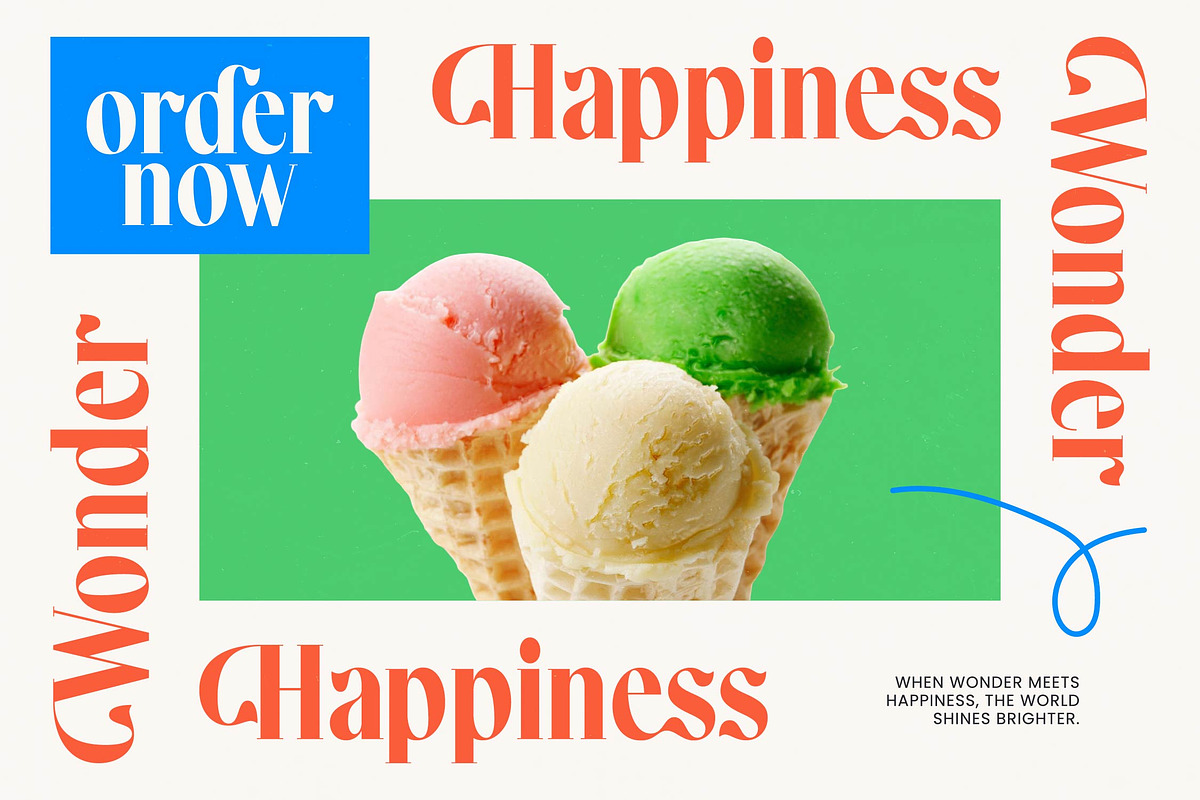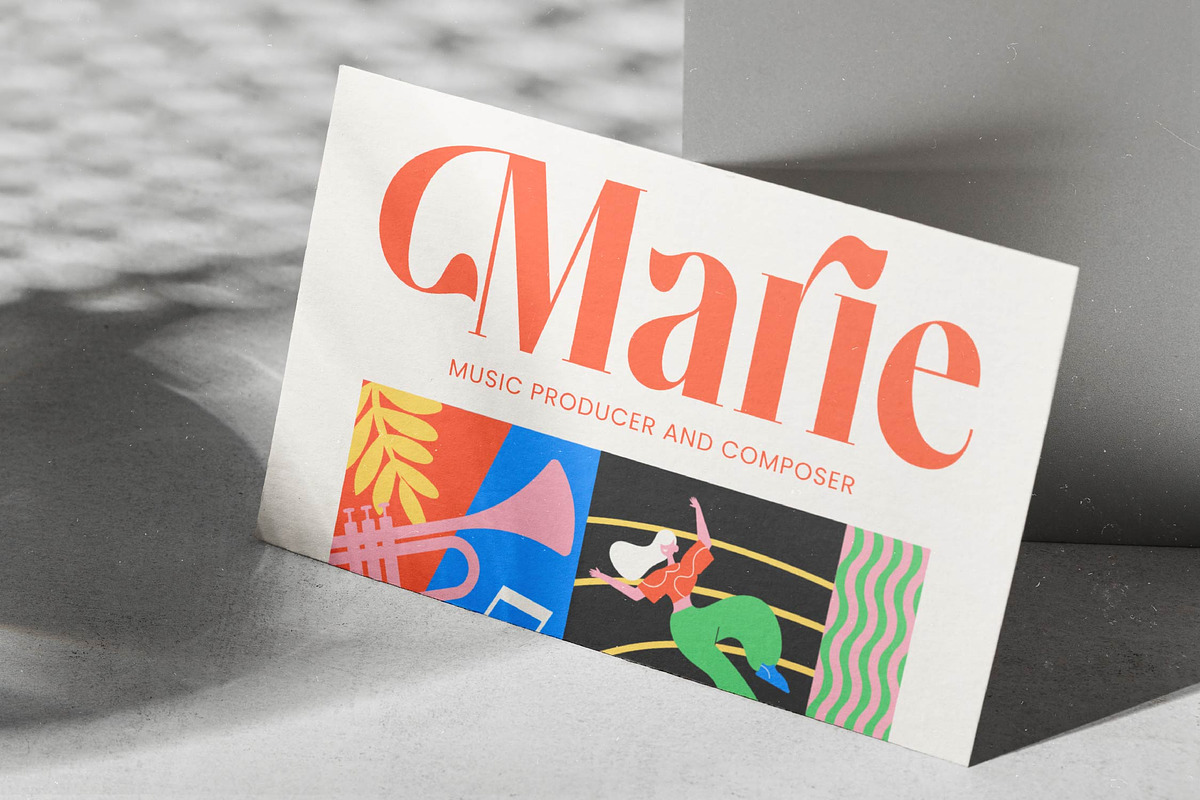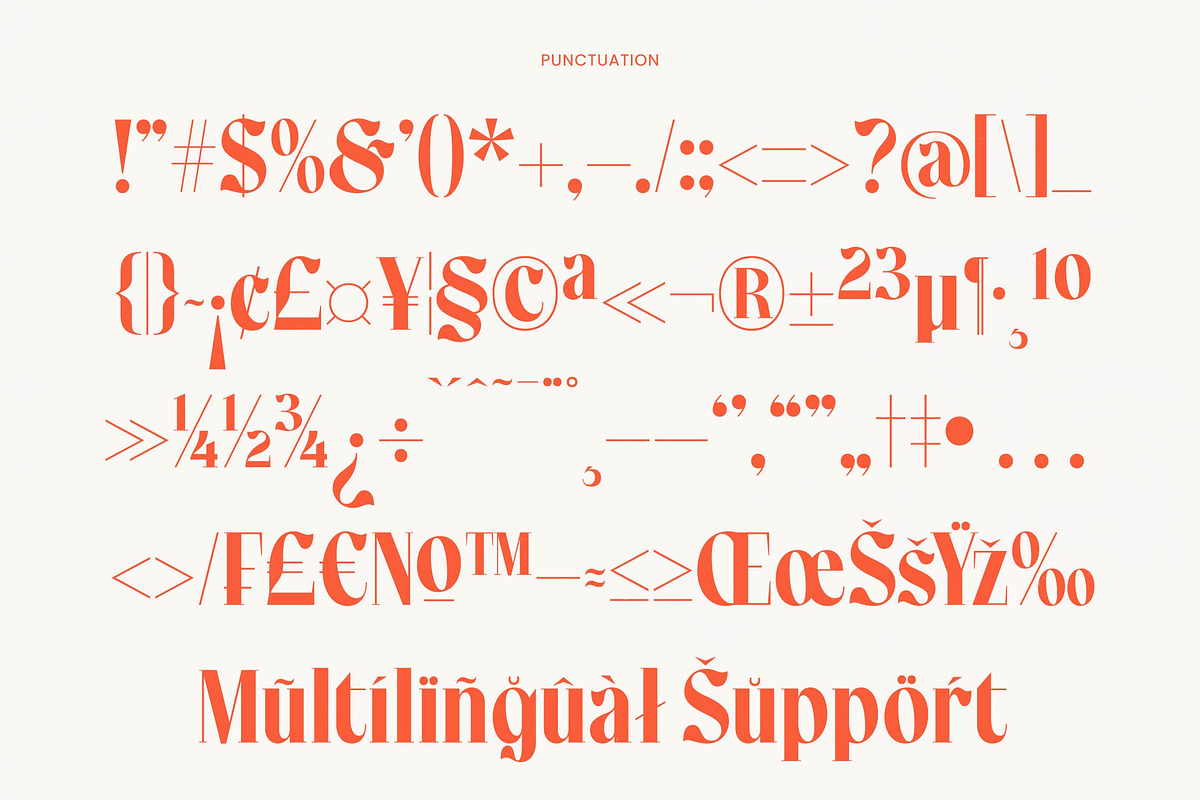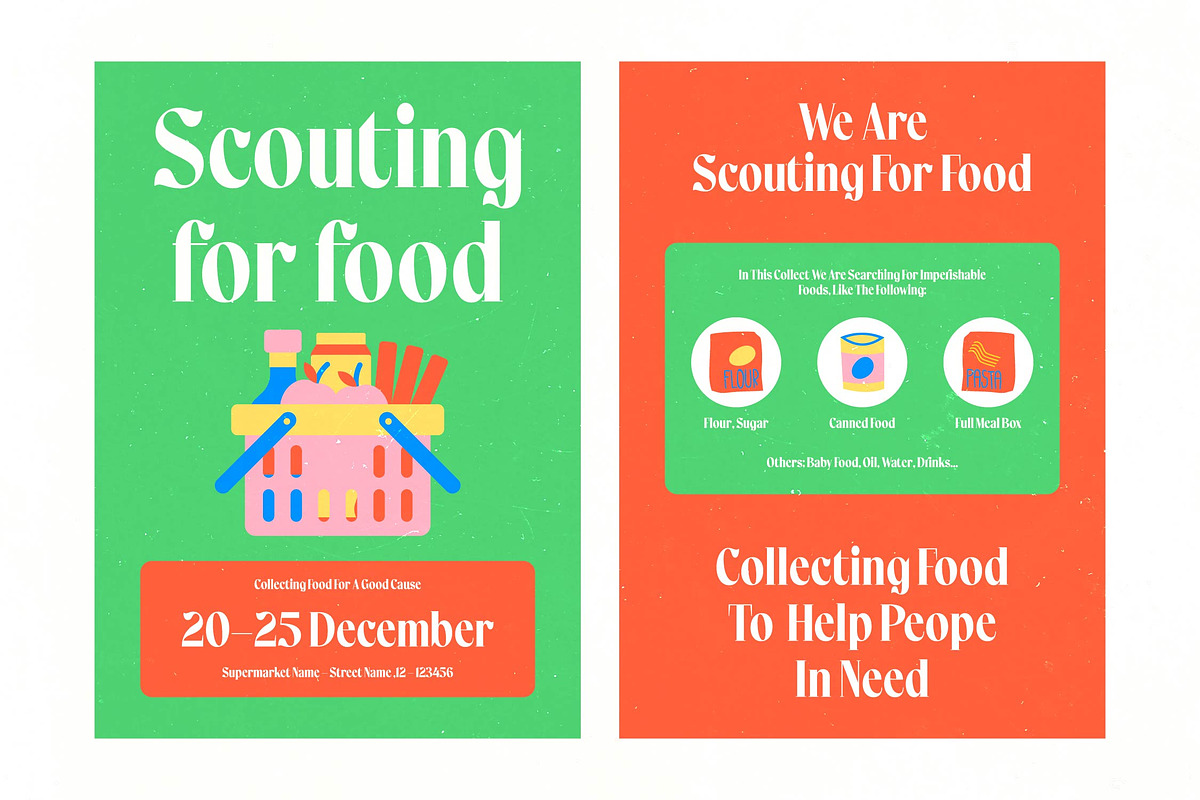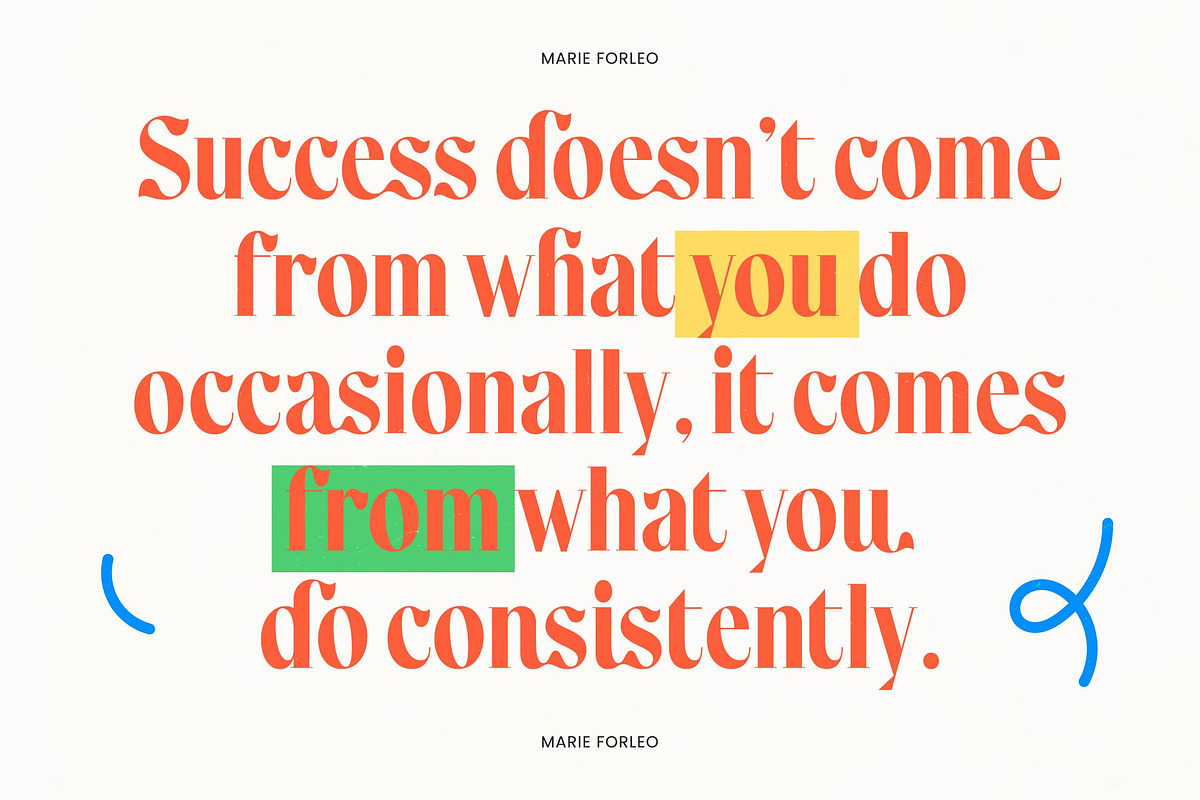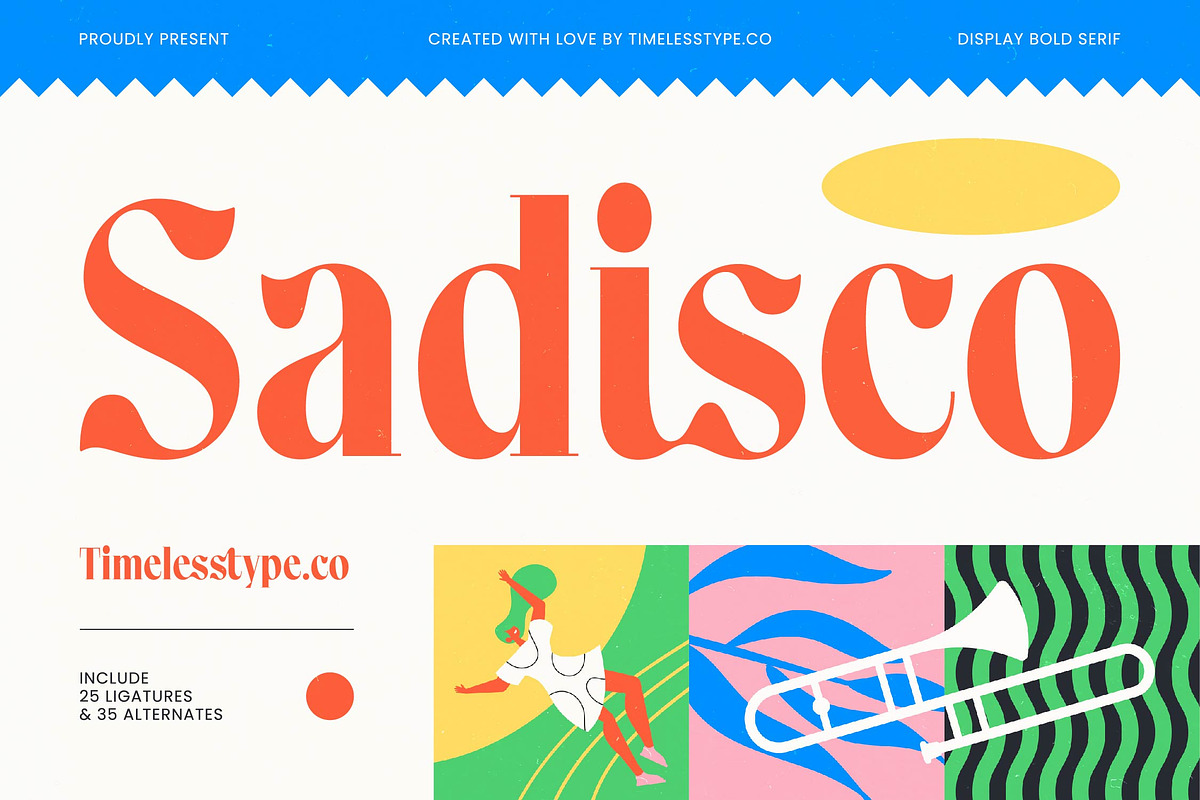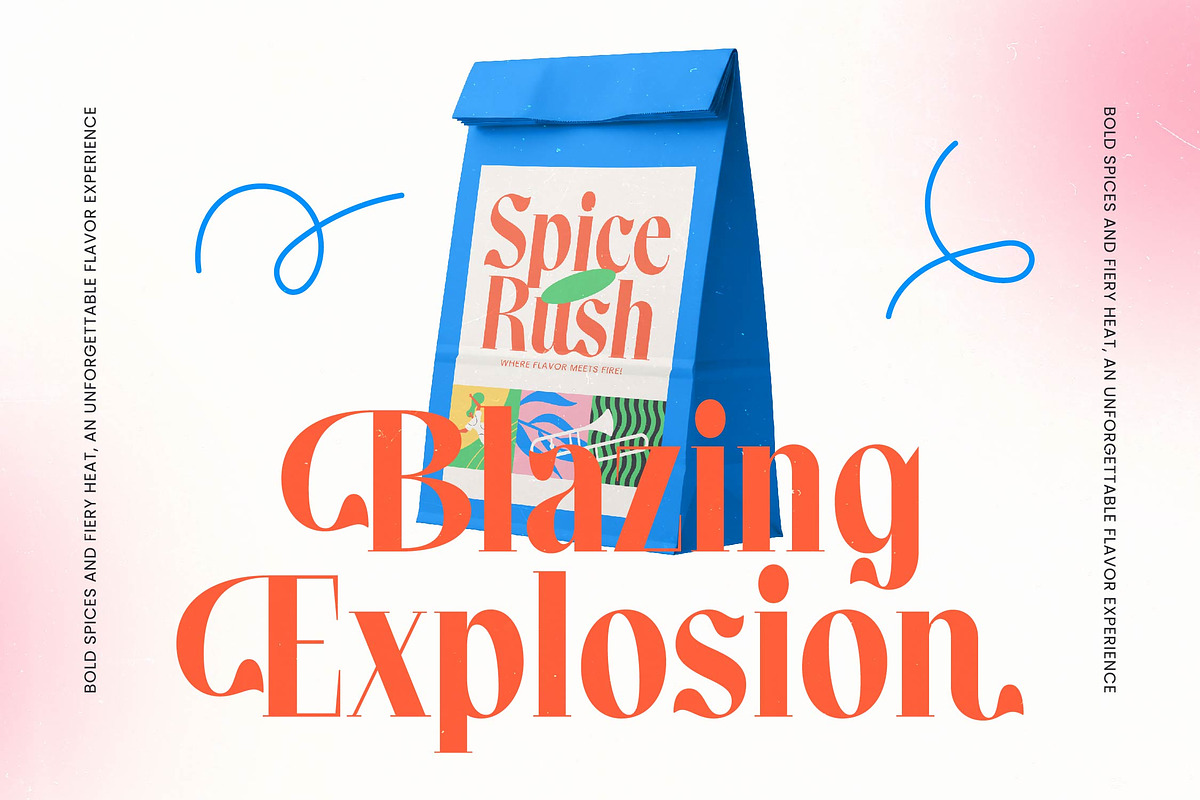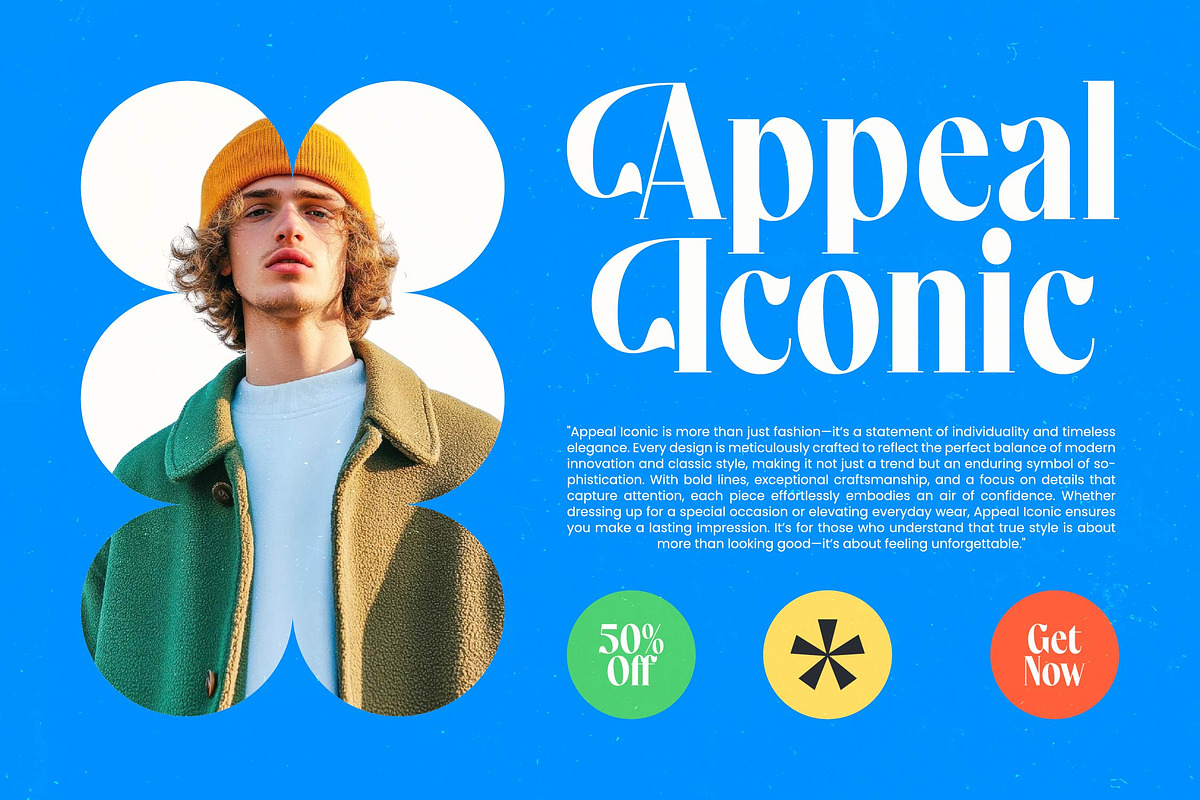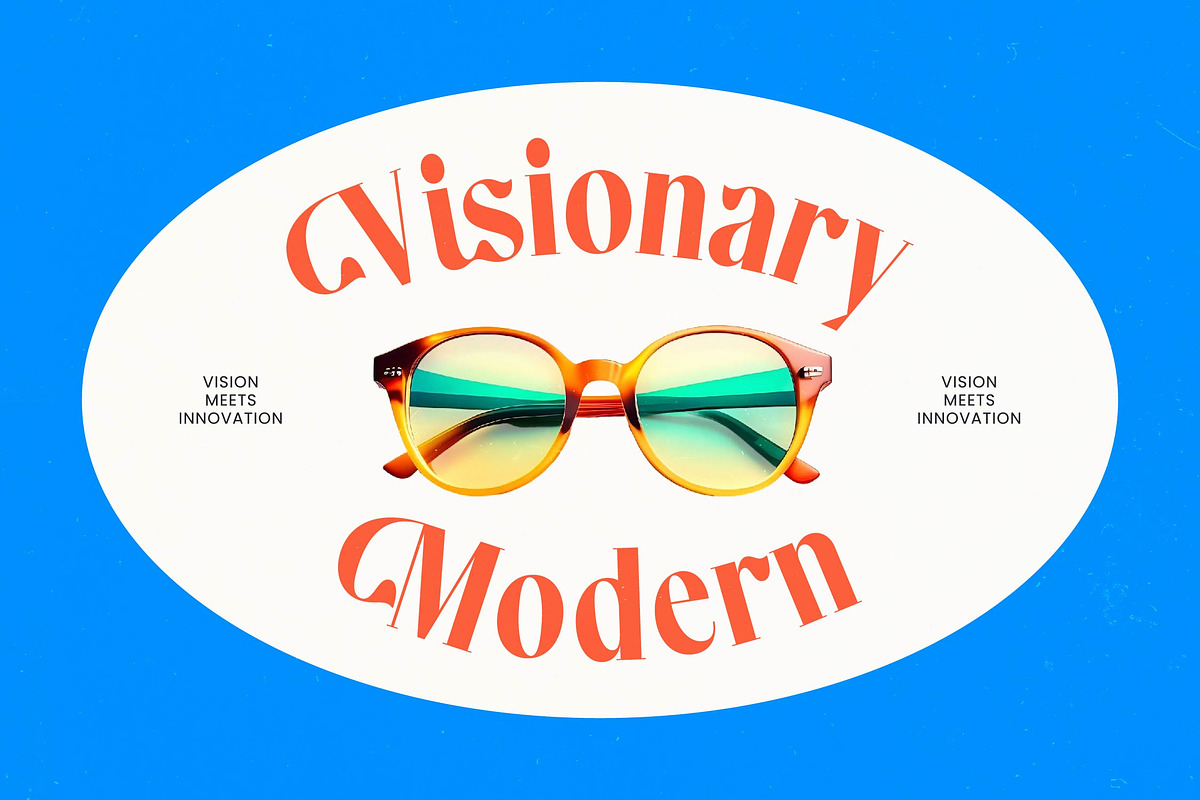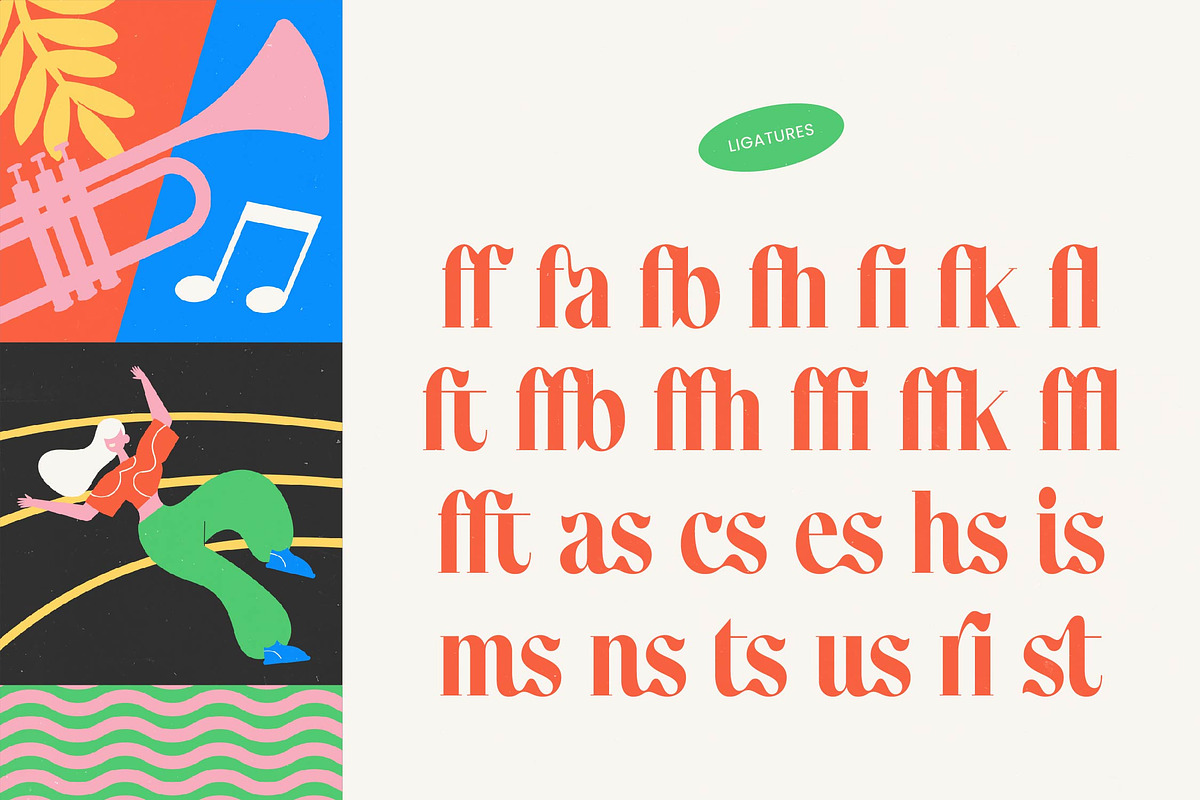
Sadisco - Bold Serif Display
Sadisco is a striking masterpiece of form and function, designed to elevate your creative projects to a new realm of visual sophistication. It captures the essence of contemporary elegance with a bold, rhythmic flow that demands immediate attention and leaves a lasting impression.
Drawing inspiration from the vibrant energy of mid-century jazz posters and modern art galleries, this font balances geometric precision with organic, fluid curves. The interplay of thick and thin strokes creates a melodic visual harmony that feels both nostalgic and forward-thinking, bridging the gap between classic and contemporary aesthetics.
With its modern serif display characteristics, Sadisco delivers a luxury typography experience that is perfect for designers seeking a high-contrast serif with significant branding impact. This editorial font exudes confidence and artistic flair, making it an essential tool for high-end creative direction and visual storytelling.
As the modern serif trend continues to dominate the design world, Sadisco stands out among editorial display fonts by offering character-driven typography that breaks away from the ordinary. Its unique personality aligns perfectly with the current shift toward expressive, soulful letterforms in both digital interfaces and high-quality print media.
This versatile typeface is the ideal choice for logo design, high-impact branding, and sophisticated editorial layouts. Whether you are working on premium packaging, elegant wedding invitations, or bold fashion lookbooks, its presence ensures your message is delivered with a refined and professional style.
The package is fully loaded with a rich set of 25 ligatures and 35 alternates that allow for endless customization and unique character pairings. Comprehensive multilingual support and a wide array of international characters ensure that your designs can speak to a global audience with ease and technical precision.